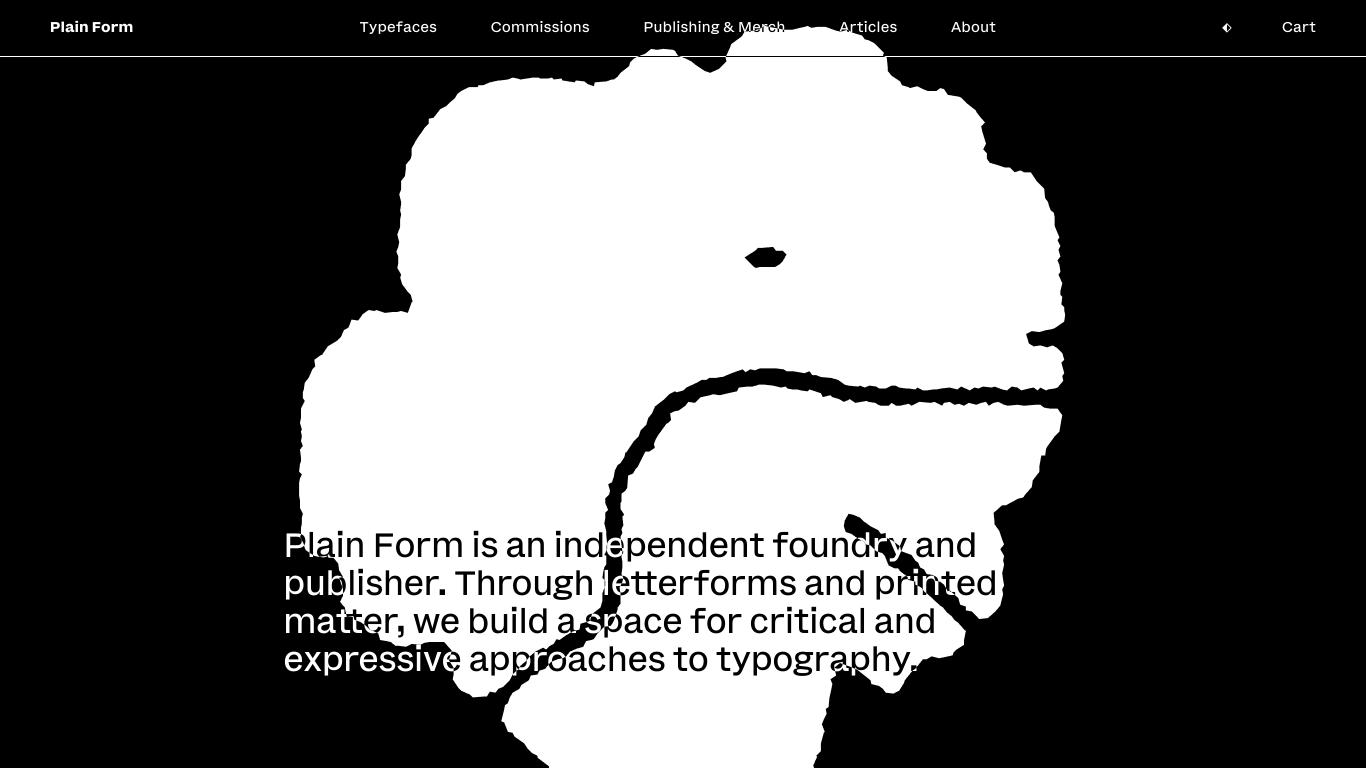
Plain Form
France
2022
Plain Form is an independent typographic foundry based in Lyon, founded by Lucas Descroix—officially launched in 2022—as an extension of his graphic and editorial design work. The studio crafts expressive, exploratory font families—such as Grandmaster, Michaux, Nostra, Paraiso, Ready, Disc, and Petit Frère—that blur the line between abstraction and legibility, often inspired by historical letterforms and generative processes. Notable custom commissions include o9 Sans, a fully variable corporate typeface created in 2020 for o9 Solutions and other bespoke designs like the organic Meristem for Vienna-based Calienna. Plain Form’s work is utilised in diverse projects—from magazine typography and album artwork (e.g., Mitski) to exhibitions and corporate branding—showcasing the foundry’s impact across design disciplines. What truly defines Plain Form is its inventive, “mad-scientist” approach to letter design: the studio explores the magical point where form becomes letter, often using algorithms and experimental processes to create fonts that challenge typographic norms while retaining a strong visual identity.